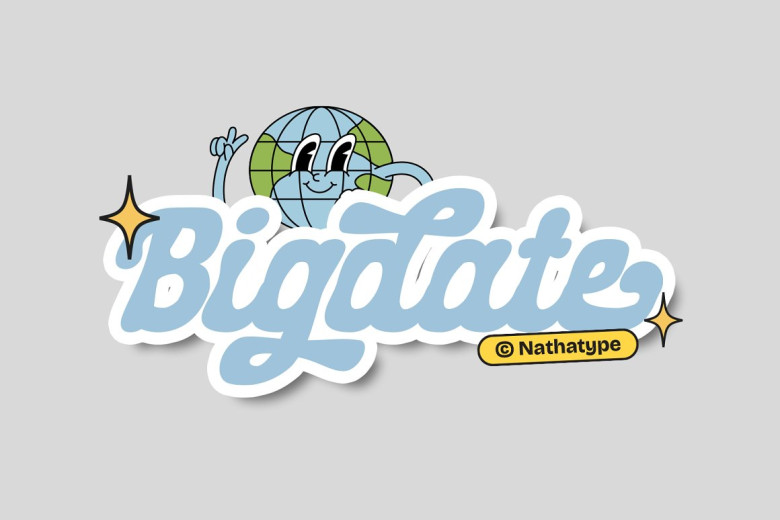
Bigdate Font
Bigdate features a retro script font with connected letters. This typeface boasts bold yet low contrast characteristics and offers fluidity and elegance to your creative projects. The font’s connected letters create a visually pleasing flow of characters; each letter seamlessly connects to its neighbor creating an appealing appearance.
Bigdate stands out among other display fonts with its distinctiveness and sophistication, making it stand out among the competition. Its bold weight grabs attention in any design project; highly visible due to thick strokes – giving typographic compositions an intense yet impactful aesthetic.
Low contrast fonts create an appealing and consistent visual experience. Their consistent stroke widths give a pleasing aesthetic. Their low-contrast designs ensure your message will be easily understood and legible – especially when used with larger text for optimal legibility. Take advantage of all available features!
Bigdate Retro Script Font